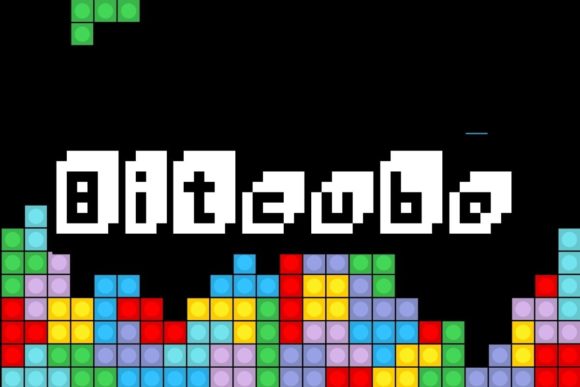
The Retro Charm of Bitcube Font: A Designer’s Delight
Ah, the nostalgia of 80s arcade games! Who didn’t spend hours feeding quarters into Pac-Man or Donkey Kong, mesmerized by the pixelated graphics and iconic sound effects? As a designer, I recently found myself on a mission to recreate that retro magic for a client’s project. The challenge? Finding the perfect font to evoke that bygone era. That’s when I stumbled upon Bitcube Font, a pixel-style typeface that’s a total game-changer.
A Moment of Frustration and Relief
I was working on a project, pouring my heart and soul into it, but something felt off. The design was modern, sleek, and polished, but it lacked a certain je ne sais quoi. That’s when I realized I needed a font that would transport my client (and their audience) back to the good old days of pixelated graphics and 8-bit soundtracks. I scoured the internet, searching for the perfect font, but nothing seemed quite right. That was until I discovered Bitcube Font.
An Honest Review of Bitcube Font
• ✨ Retro charm: Bitcube Font nails the retro aesthetic, transporting you back to the iconic arcade games of the 1980s.
• ✅ Pixel-perfect: The font’s pixel-style design makes it perfect for creating nostalgic designs that scream 80s awesomeness.
• 💡 Versatile: Bitcube Font can be used for a wide range of projects, from posters and flyers to social media graphics and website headers.
• 👍 Easily readable: Despite its pixelated design, the font remains surprisingly readable, even at smaller sizes.
While Bitcube Font is an amazing addition to any designer’s toolkit, it’s not without its quirks. Here are a few things to keep in mind:
• 🤔 Limited character set: Bitcube Font might not have an extensive character set, so be sure to check if it covers all the characters you need.
• ⚠️ Not suitable for body text: Due to its pixelated design, Bitcube Font is best used for headlines, titles, or short bursts of text. It might not be the best choice for longer blocks of text.
The Story Behind Bitcube Font
Bitcube Font was created by a designer who’s passionate about retro gaming and pixel art. Inspired by the iconic arcade games of the 1980s, they set out to create a font that would capture the essence of that bygone era. With its pixel-style design and nostalgic charm, Bitcube Font is the perfect addition to any designer’s toolkit.
Q: What is Bitcube Font?
A: Bitcube Font is a retro display font inspired by the iconic arcade games of the 1980s. It features a pixel-style typeface with a white background, perfect for emphasizing text in your next nostalgic design.